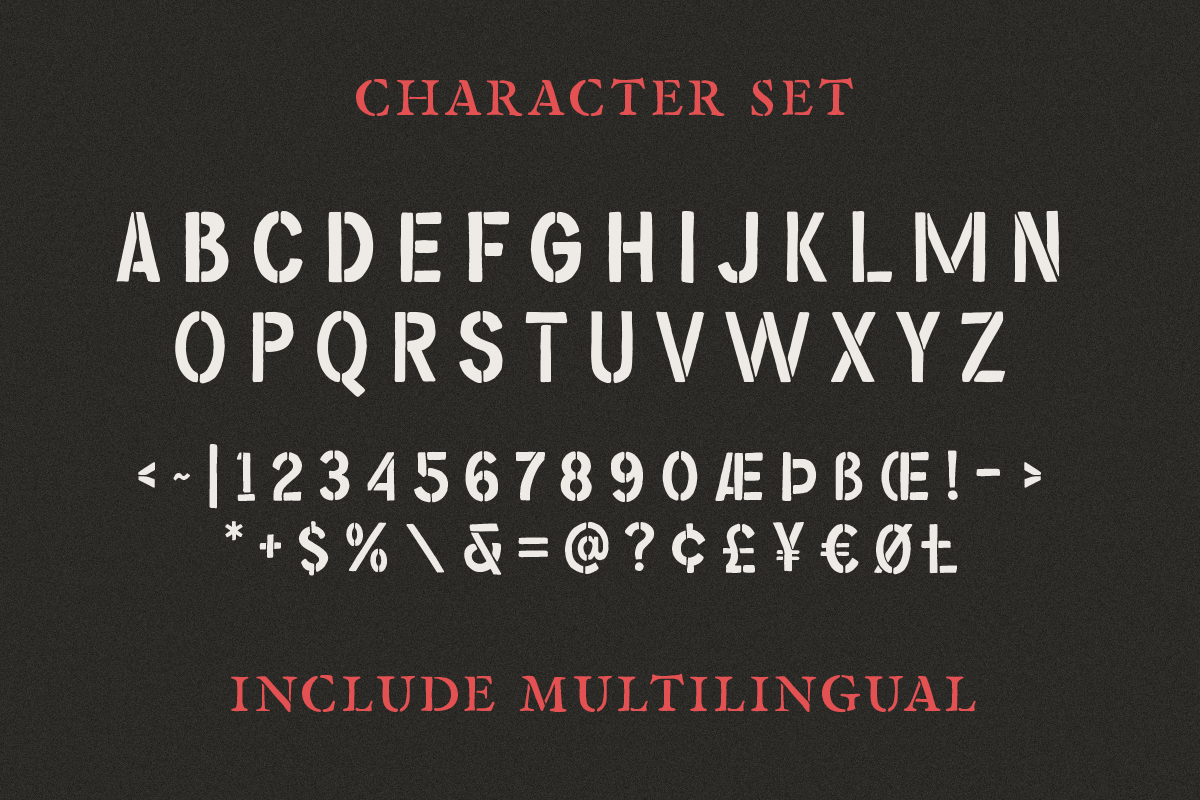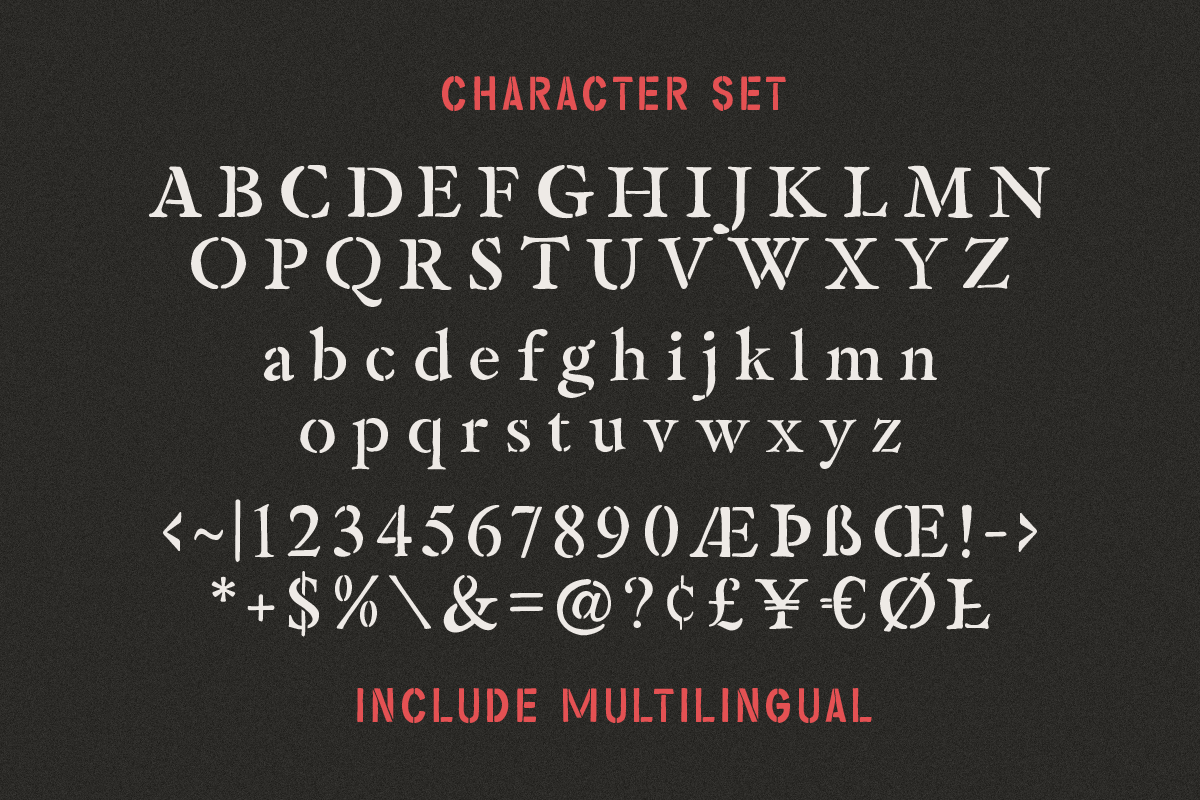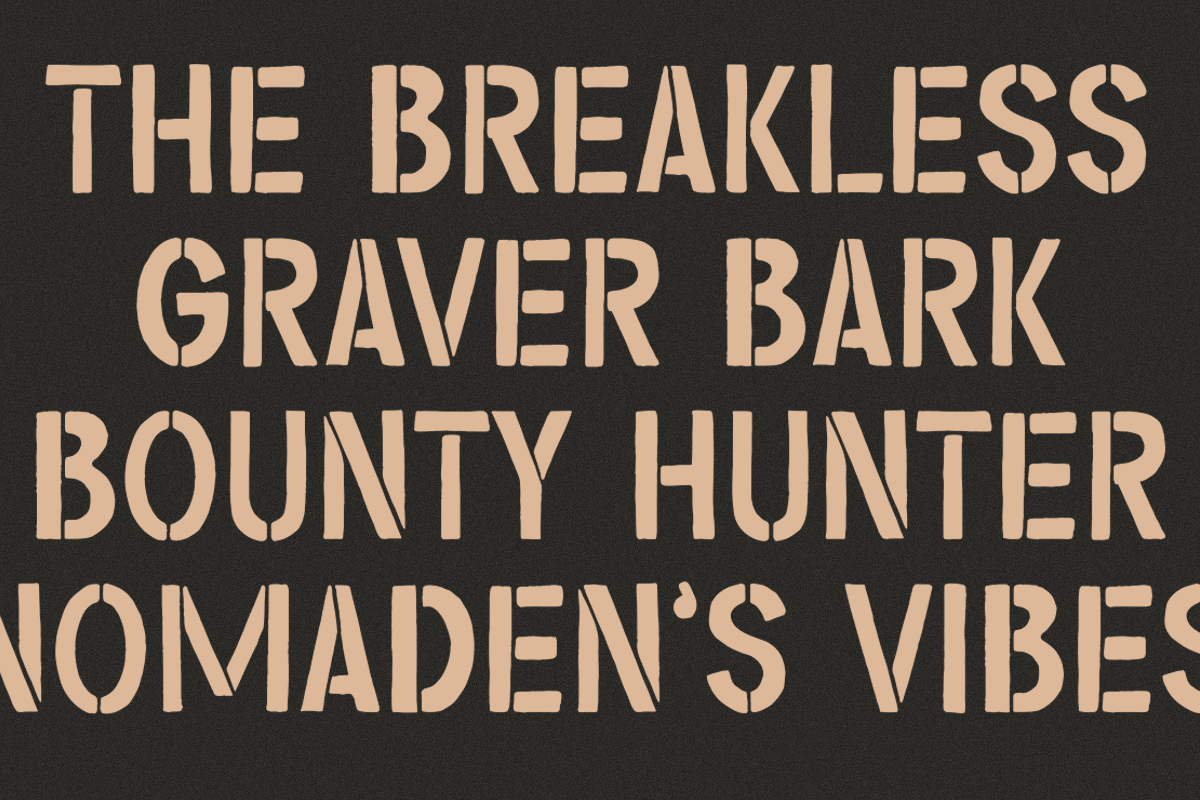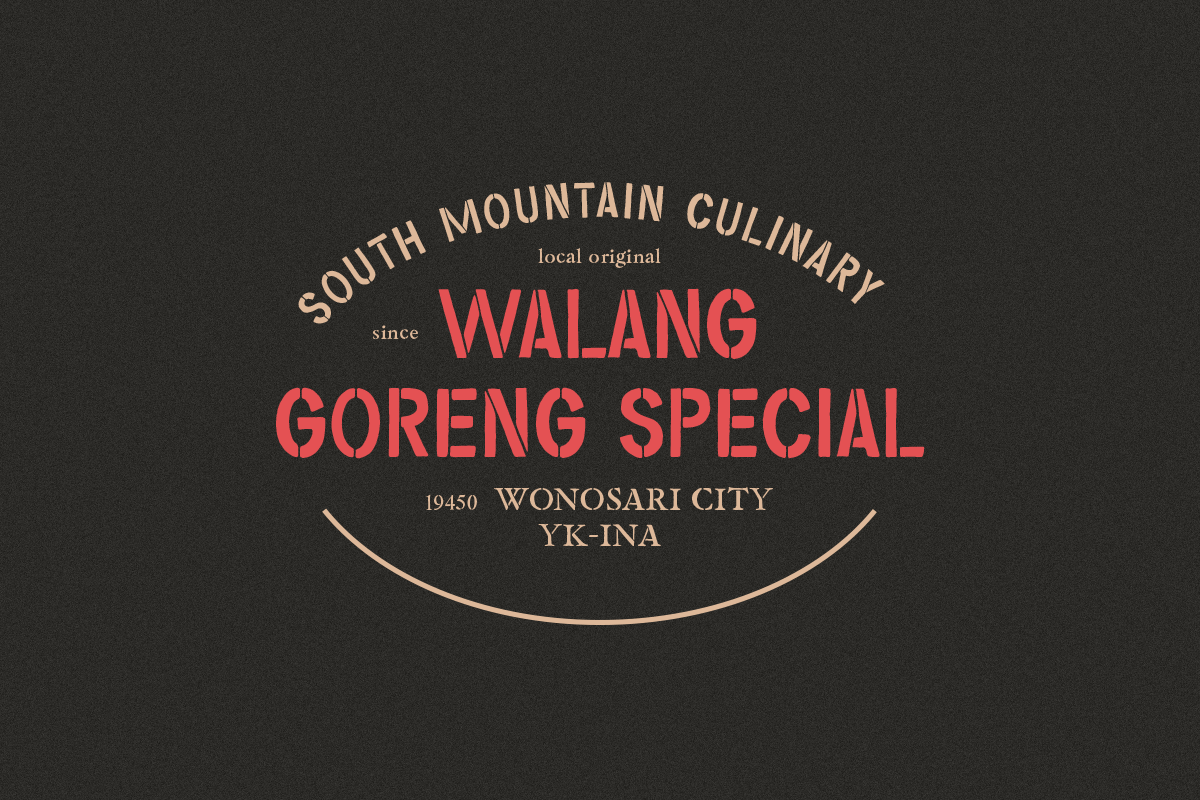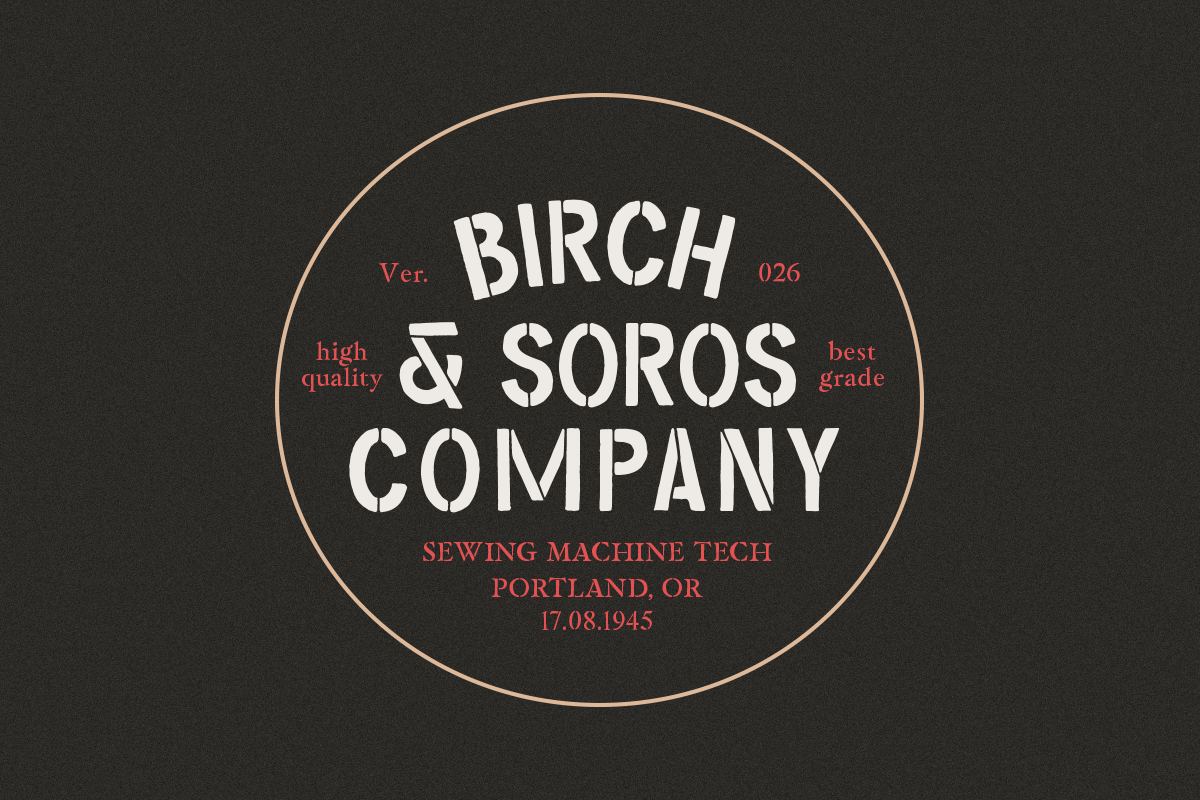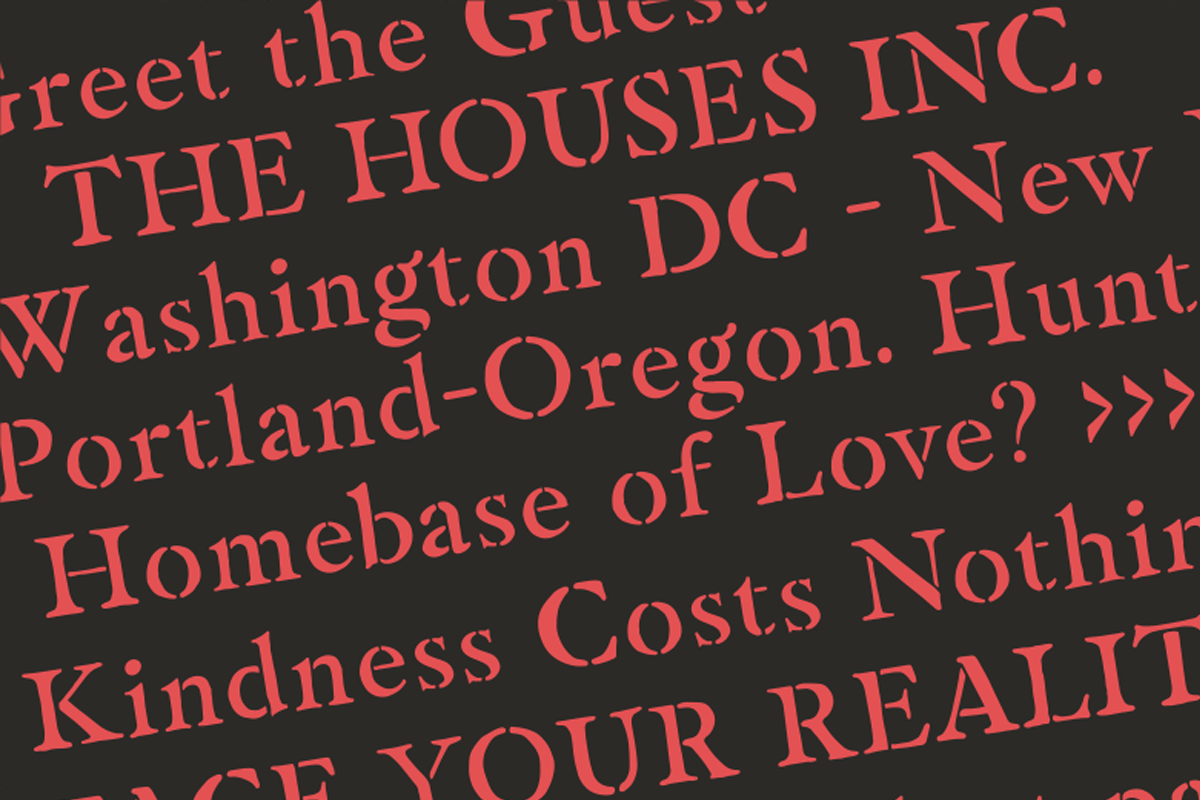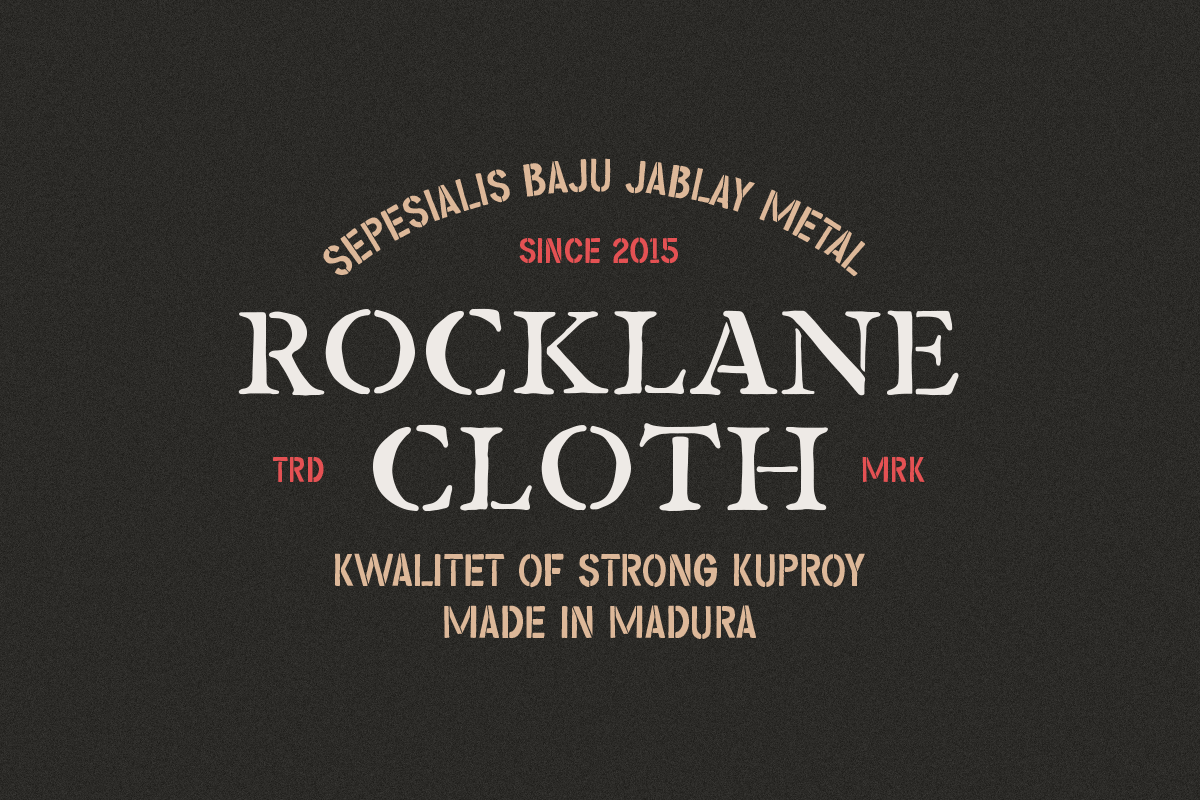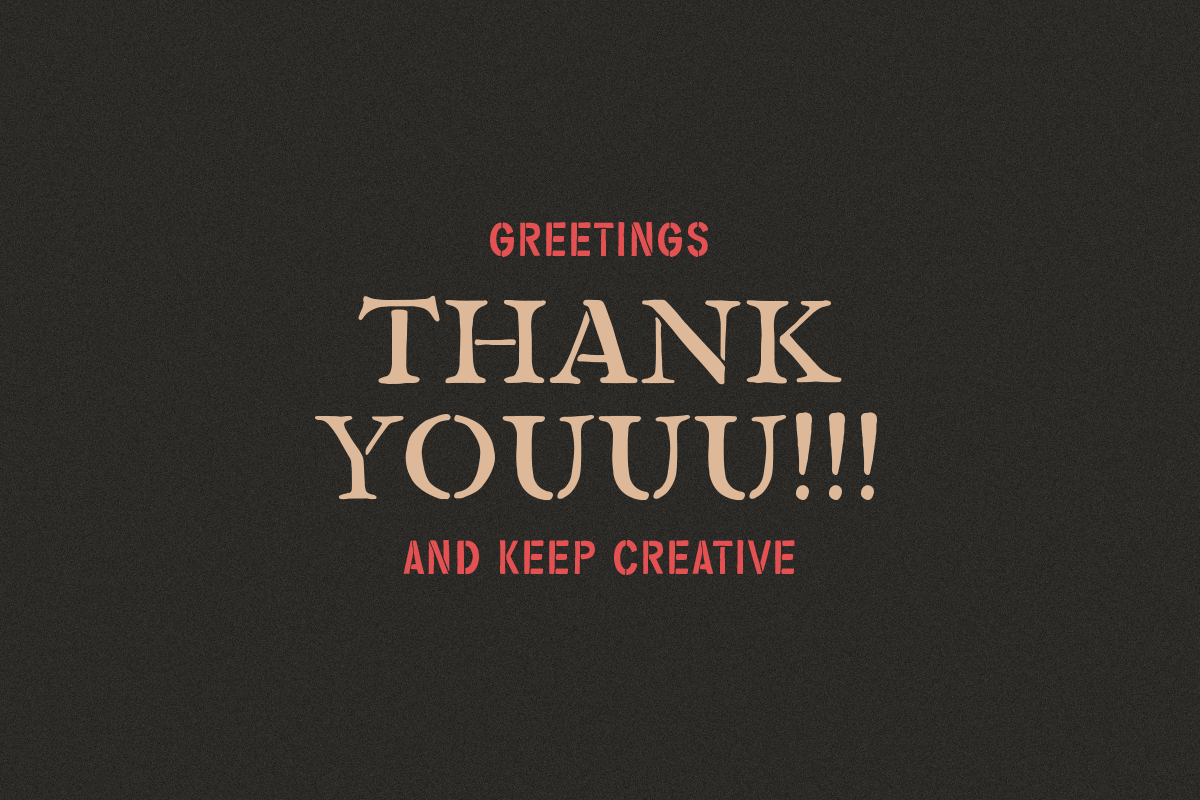
Gripstone Stencil - Vintage Font Duo
GRIPSTONE STENCIL
GRIPSTONE is a double font designed with carefully handcrafted. Also suitable for branding, T-shirt, Classic Design, Logotype, and any project. Comes with a tons of ligature and alternates make your life more than comofortable, easier to design and free stress.
Multilingual Support support many different languages 20+ .